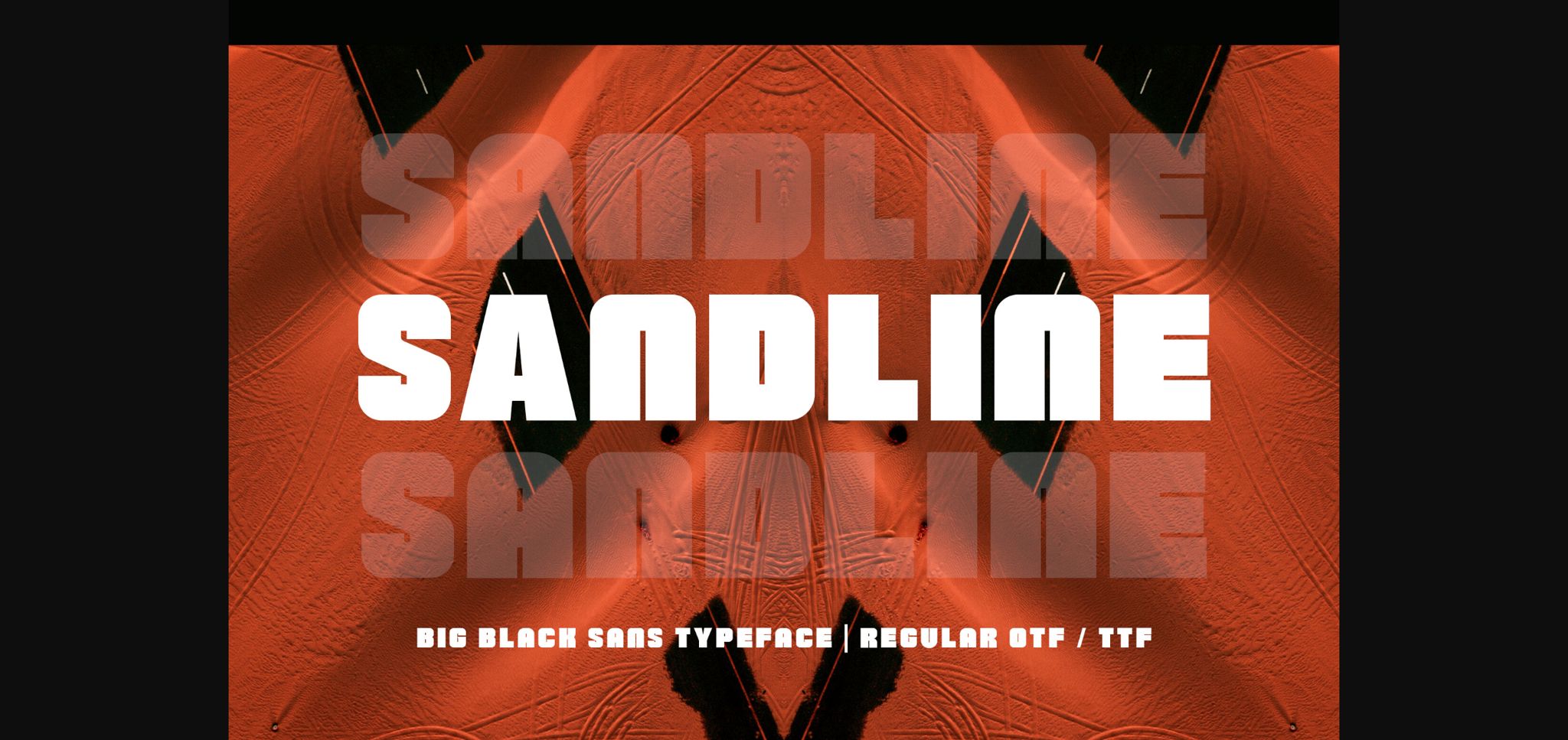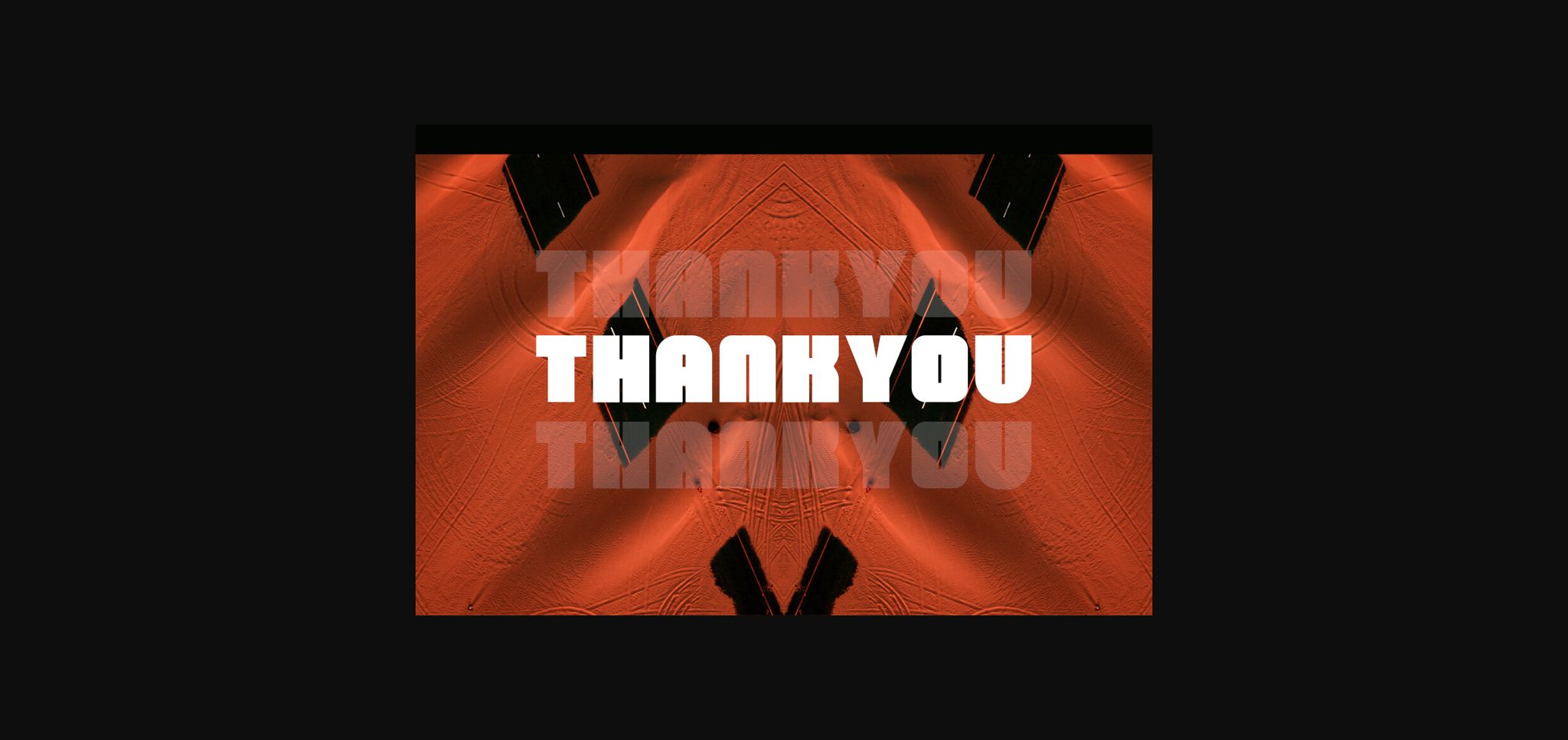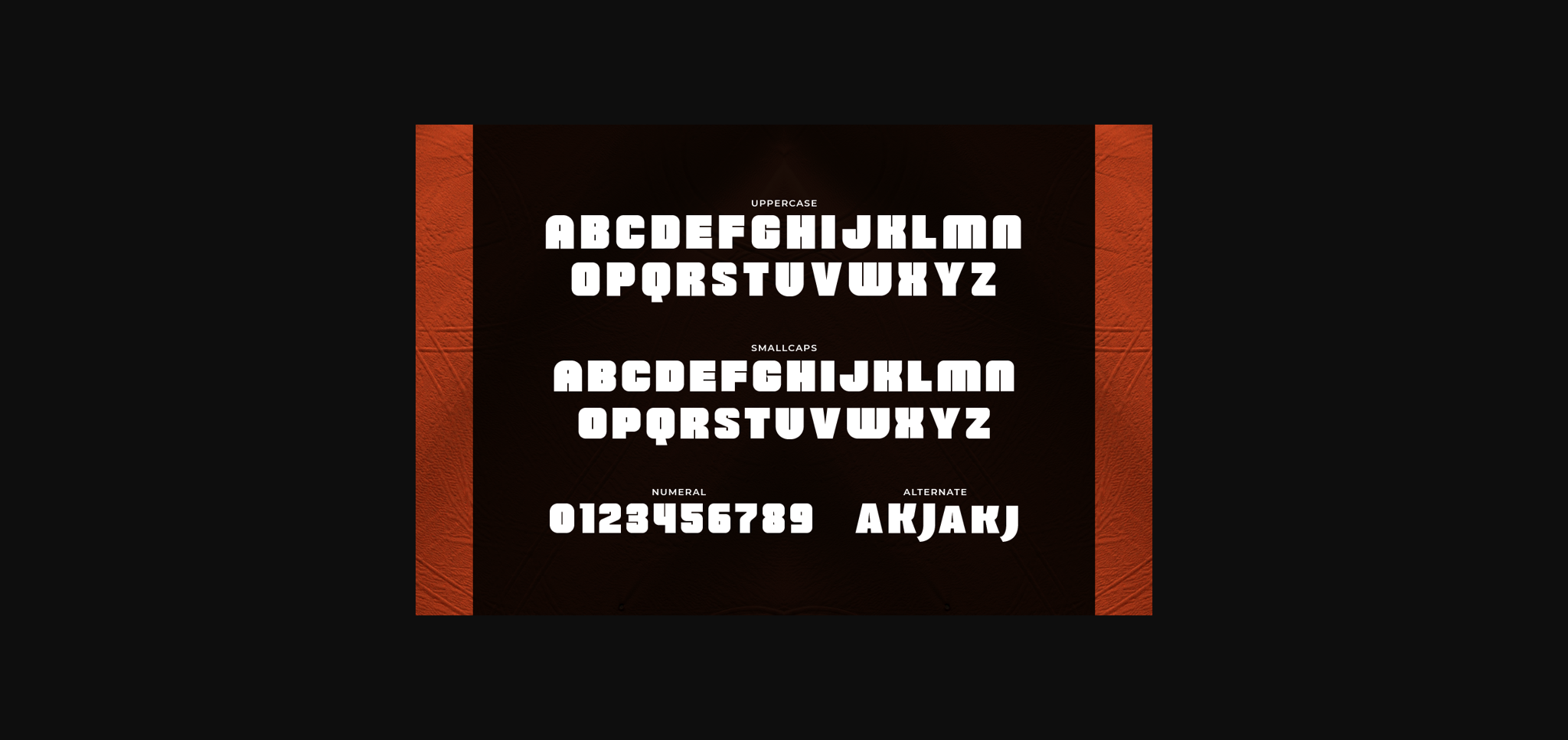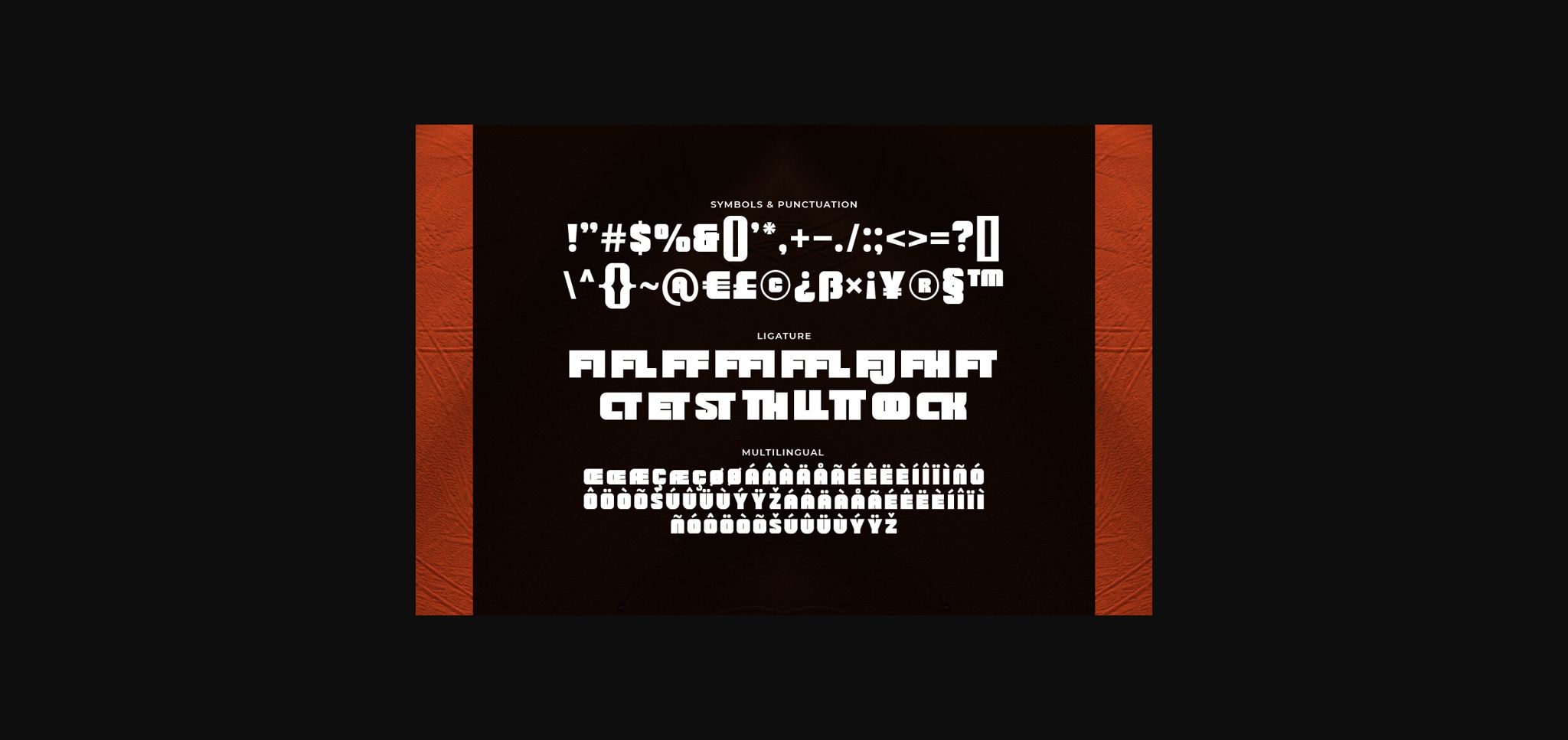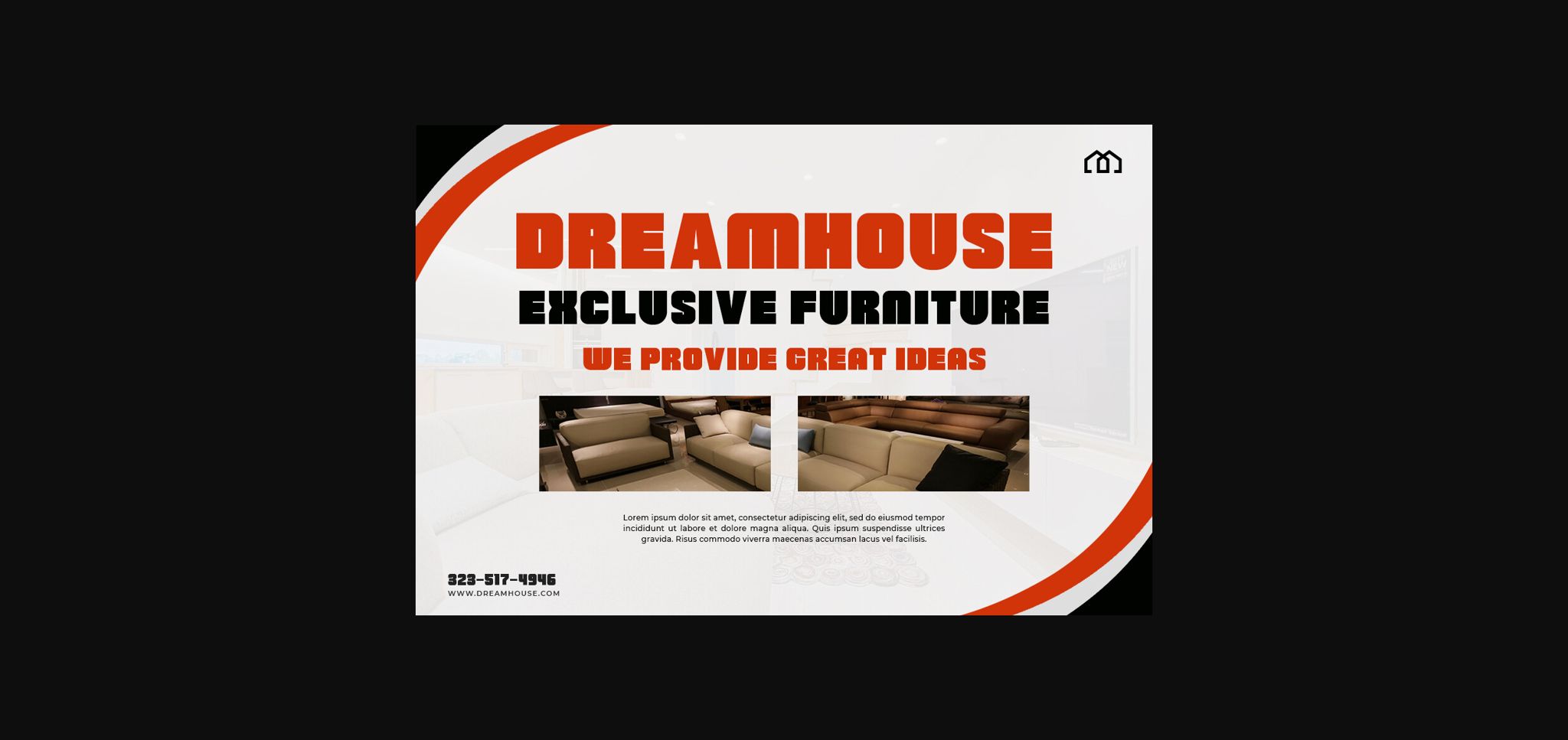
About Sandline Font
Make a bold impact with “Sandline” – a big black sans typeface that commands attention and exudes modernity! Embrace the versatility of “Sandline” as it effortlessly elevates your designs. Whether you’re working on minimalist logos, urban graphics, clean layouts, or attention-grabbing packaging, this font will captivate your audience with its big and powerful style.